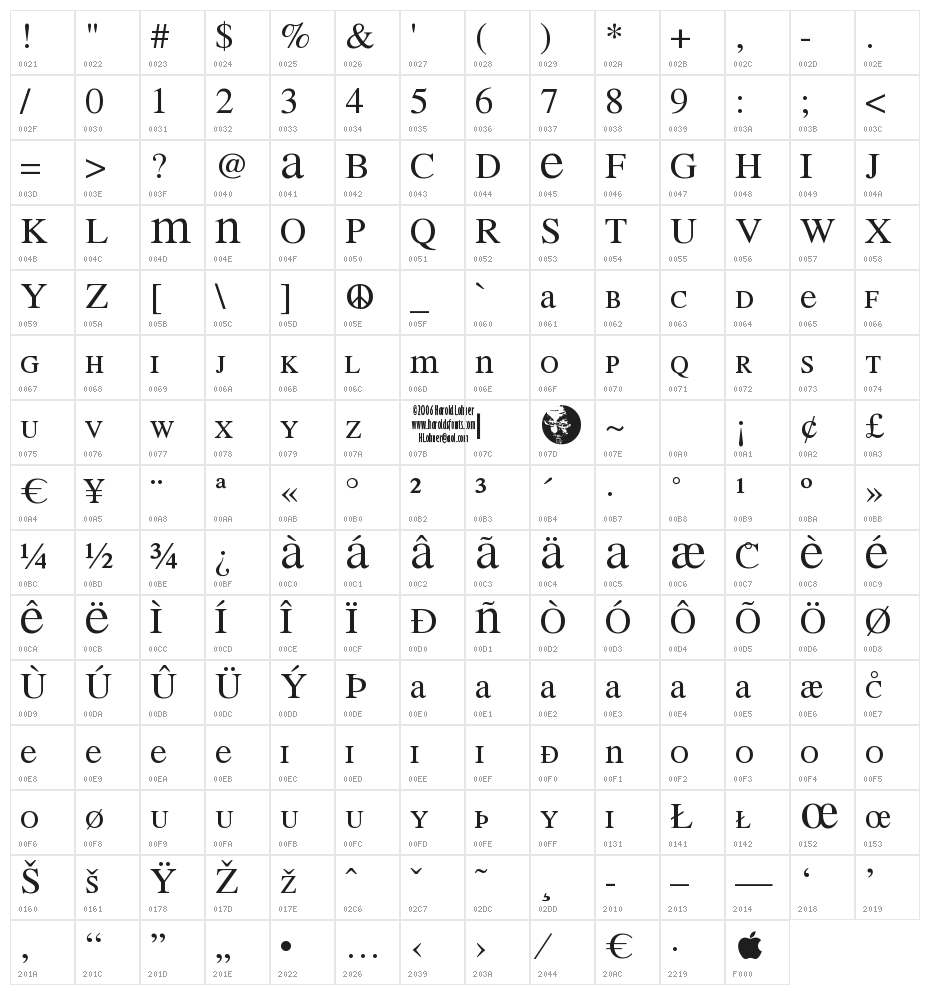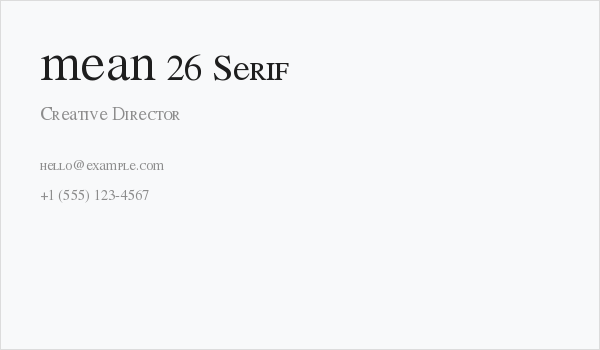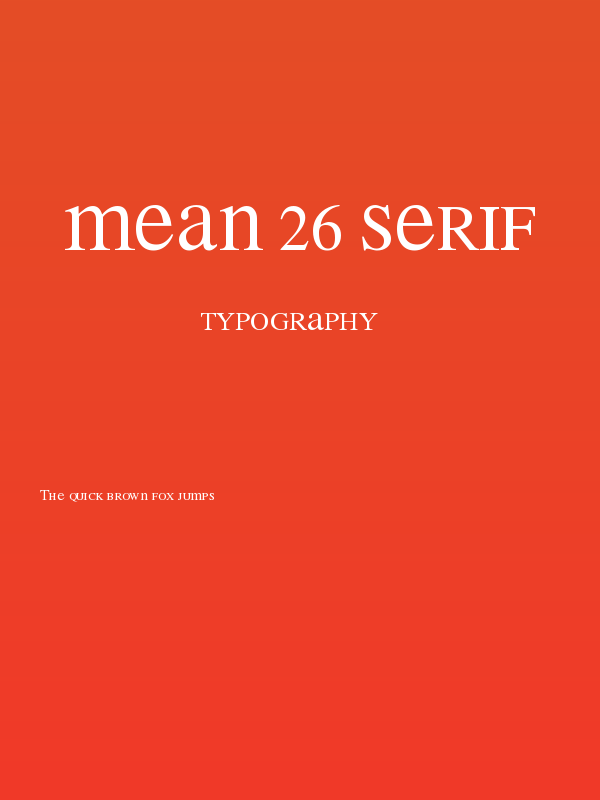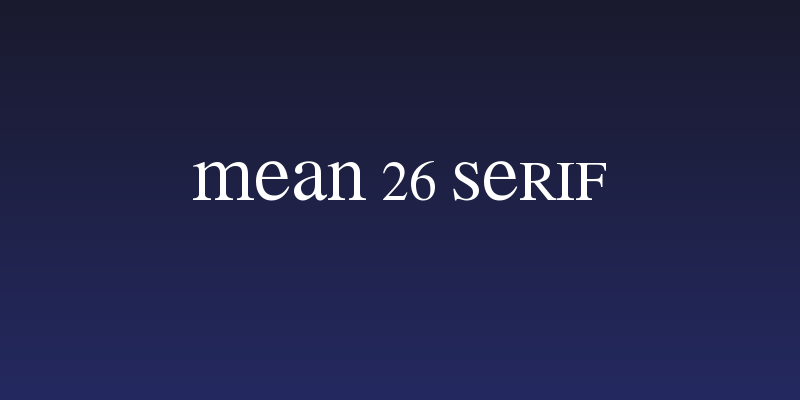
MEAN 26 Serif Font
MEAN 26 Serif Description
This serif typeface features a classic and elegant design with a strong emphasis on readability and traditional aesthetics. The characters exhibit a balanced contrast between thick and thin strokes, enhancing legibility while maintaining a sophisticated appearance. The serifs are pronounced yet refined, adding a touch of formality and timelessness to the font. The uppercase letters are bold and commanding, while the lowercase letters provide a harmonious flow, making it suitable for both display and body text. Numbers are clear and well-proportioned, ensuring clarity in numerical data presentation. The special characters are thoughtfully designed to complement the overall style, making this font versatile for various applications.
| Use Case | Body text, Headlines, Editorial design |
| Proposed Projects | Ideal for book typesetting, formal invitations, branding for luxury products, and editorial design. |